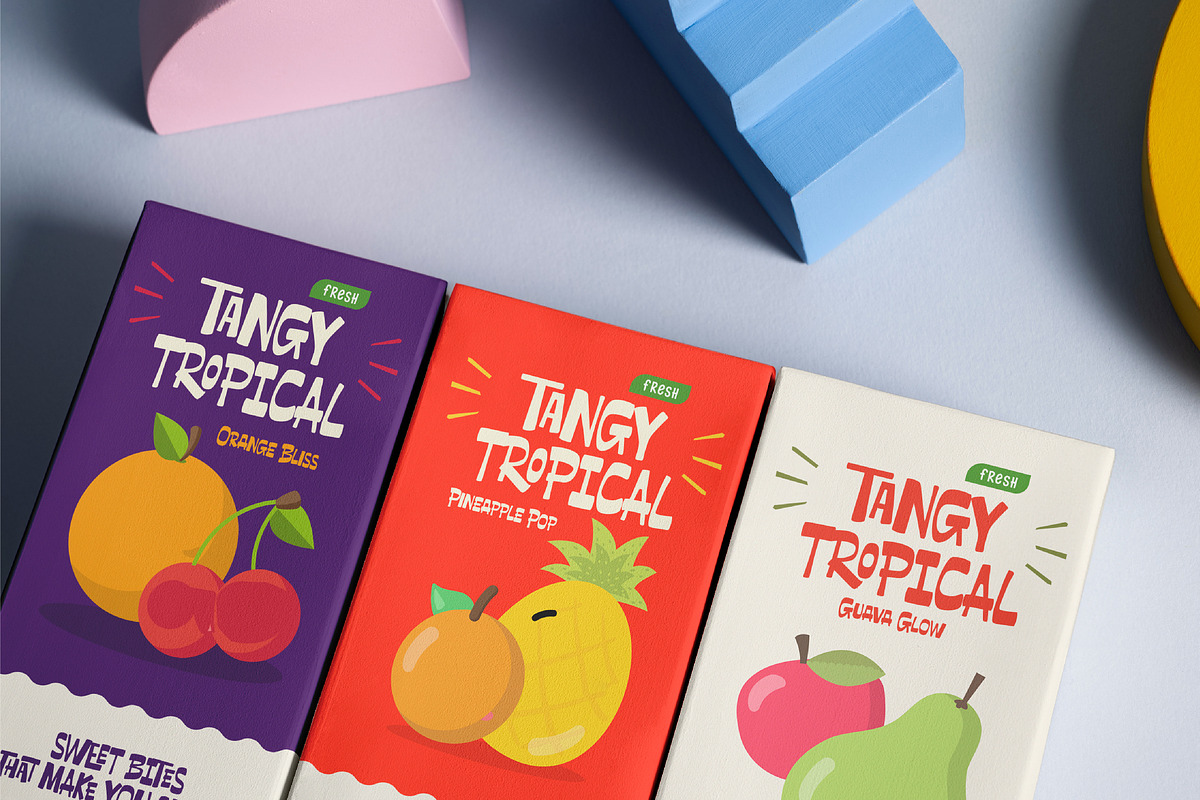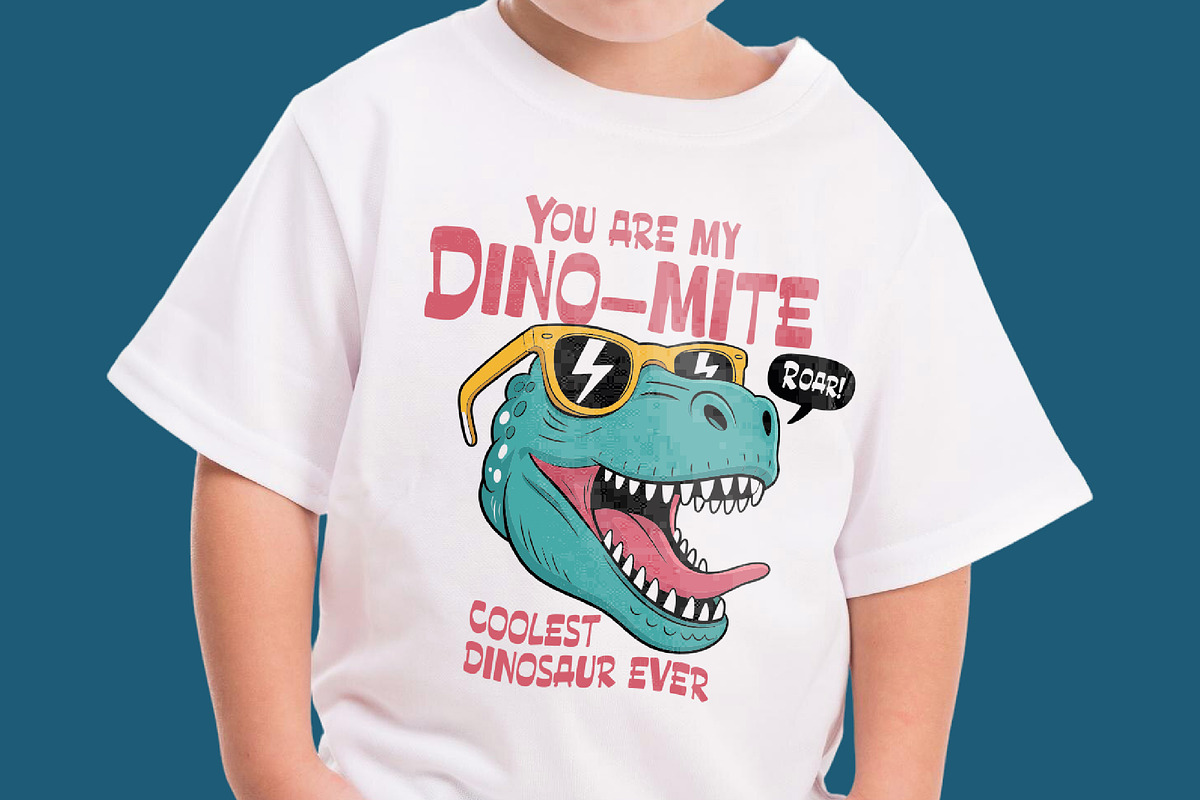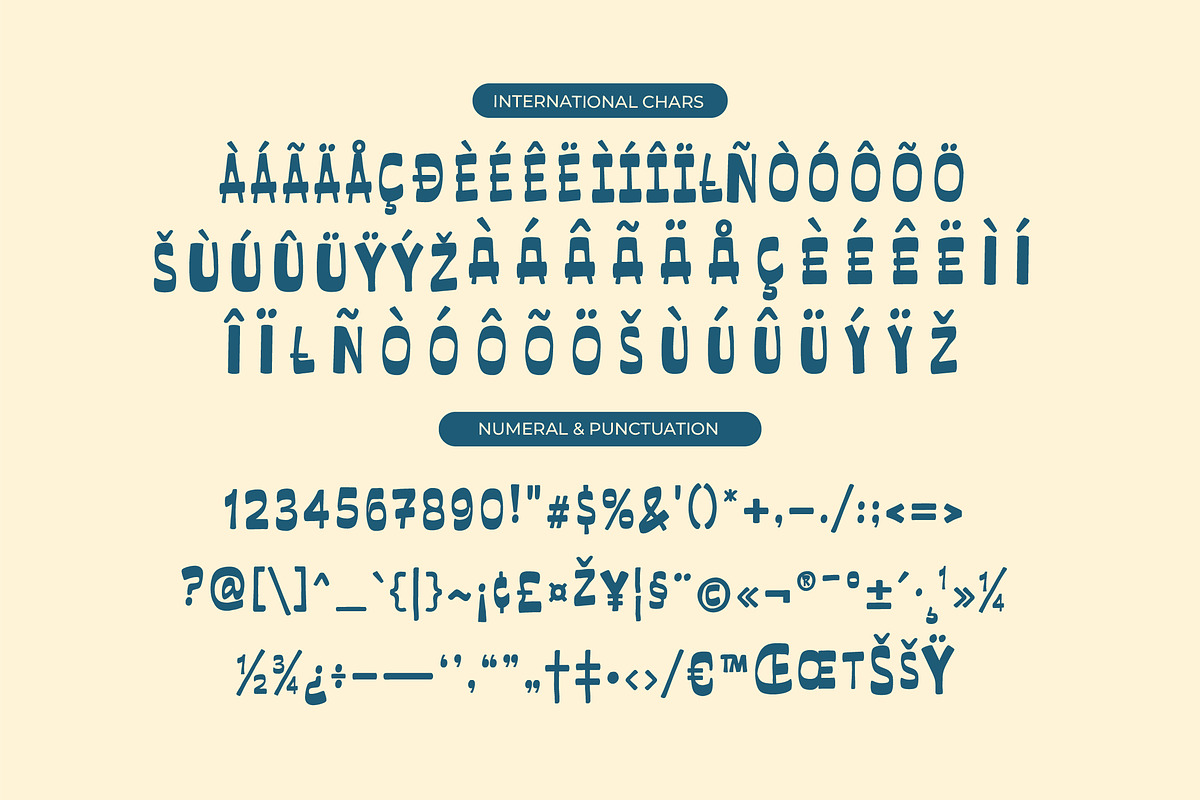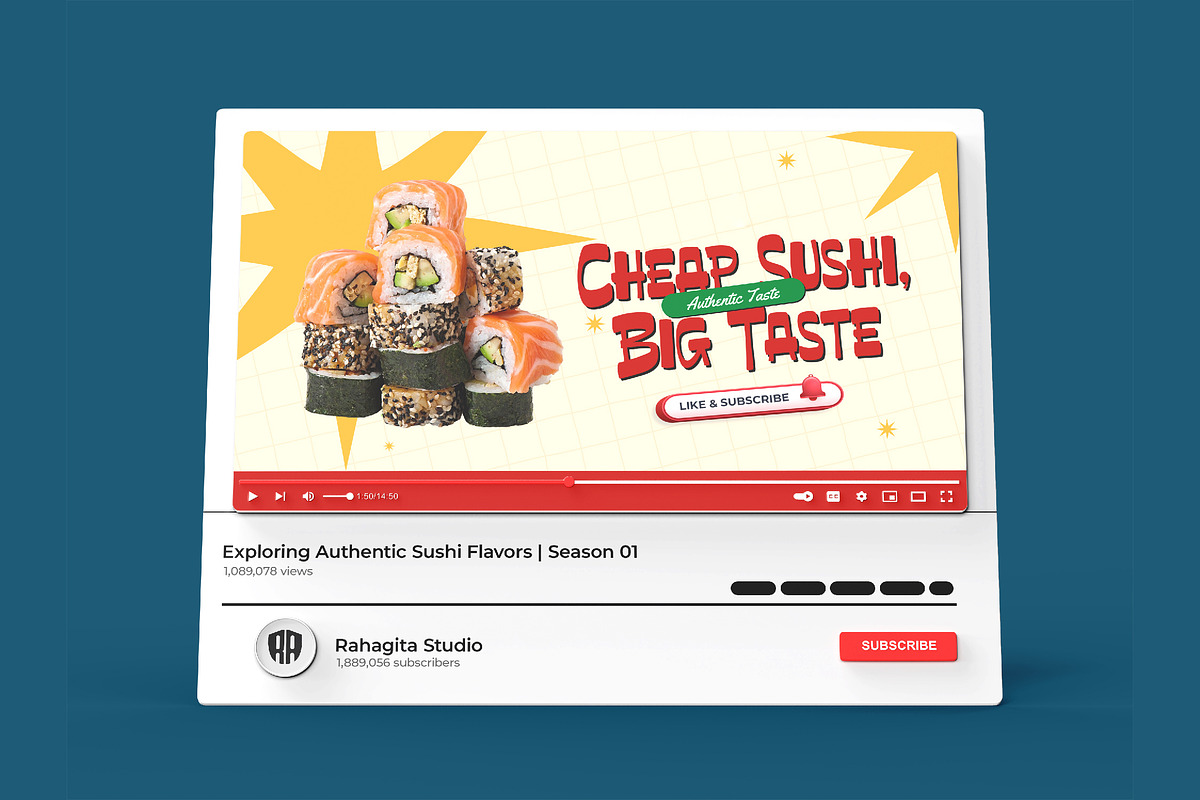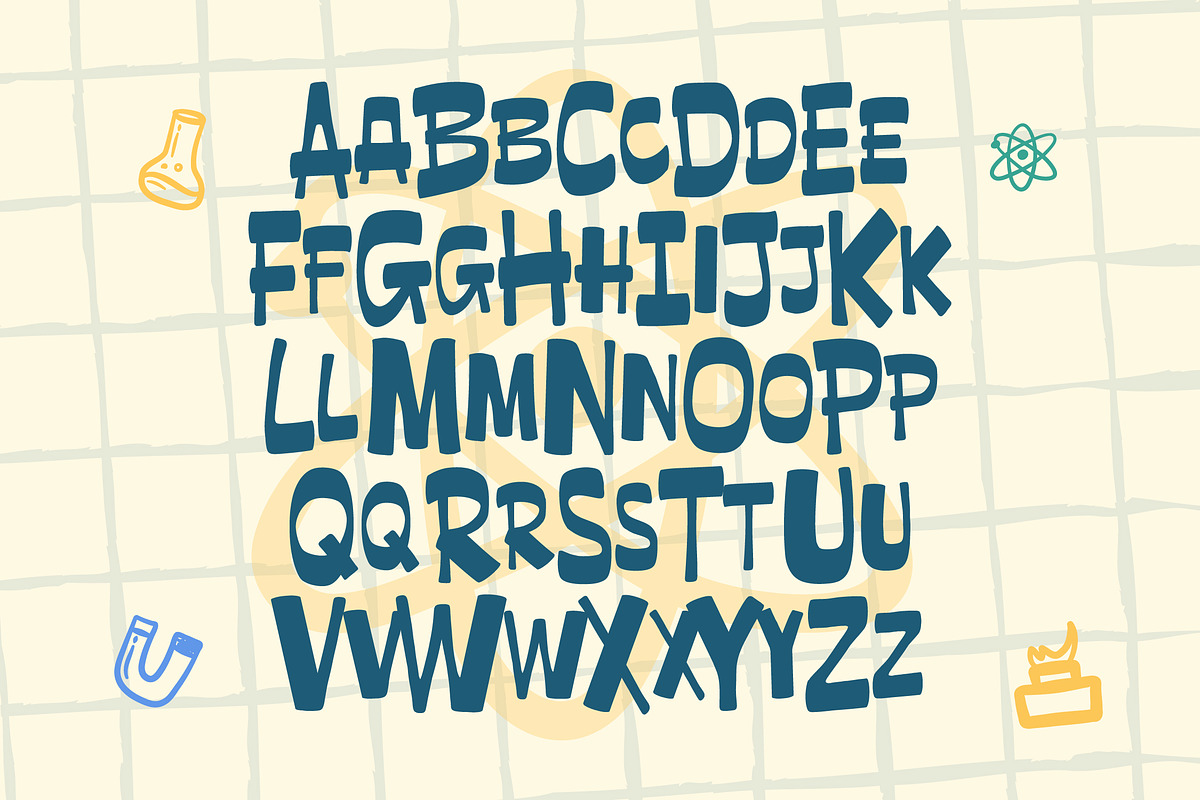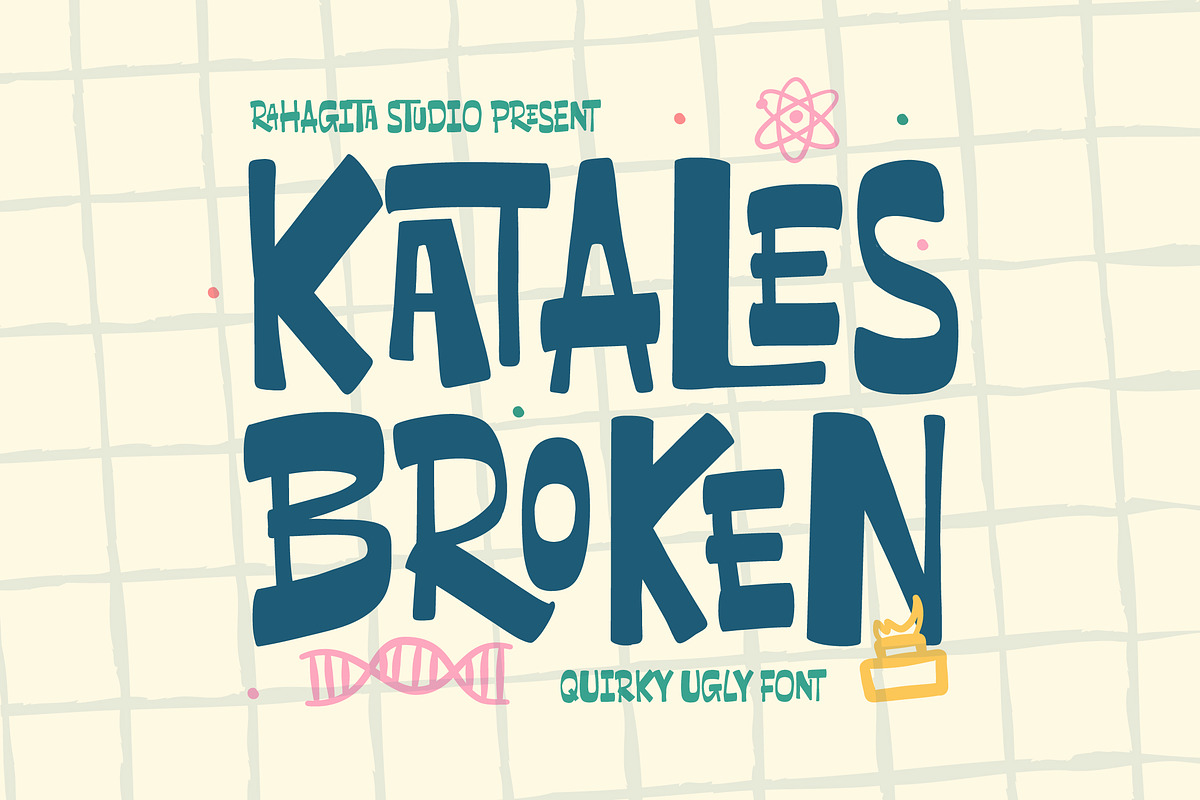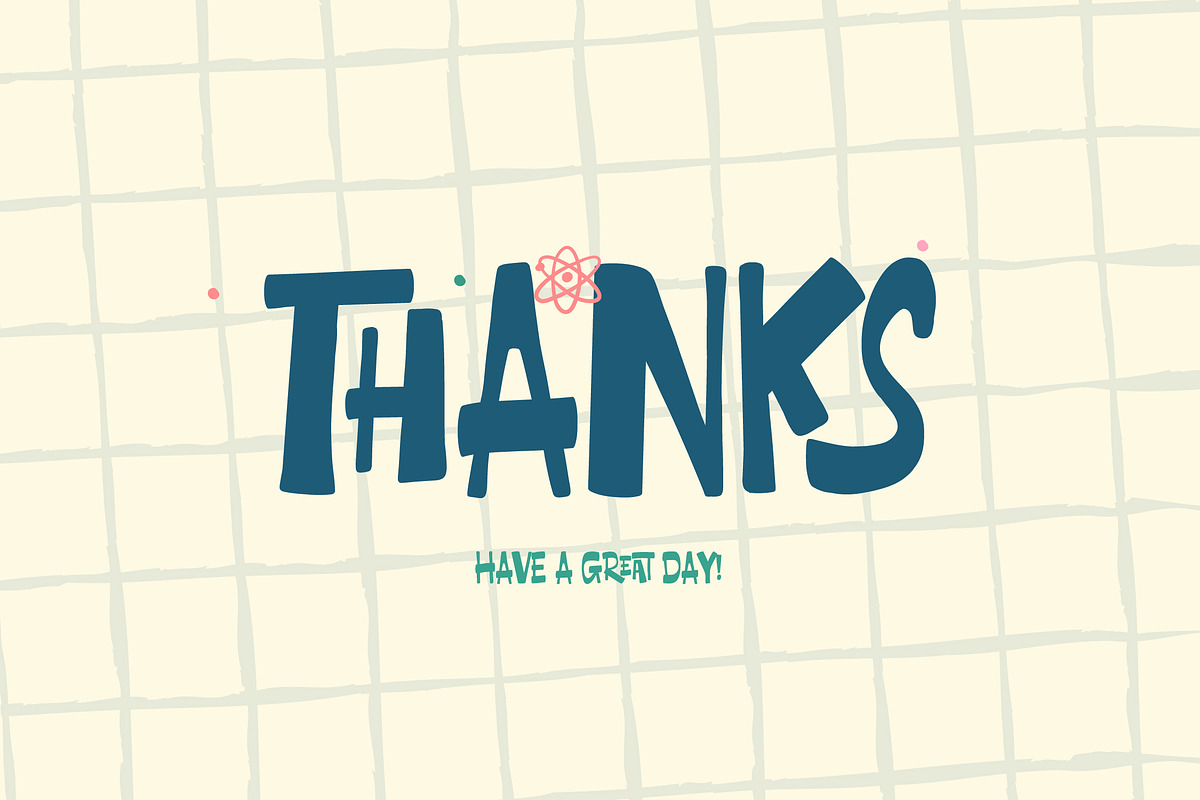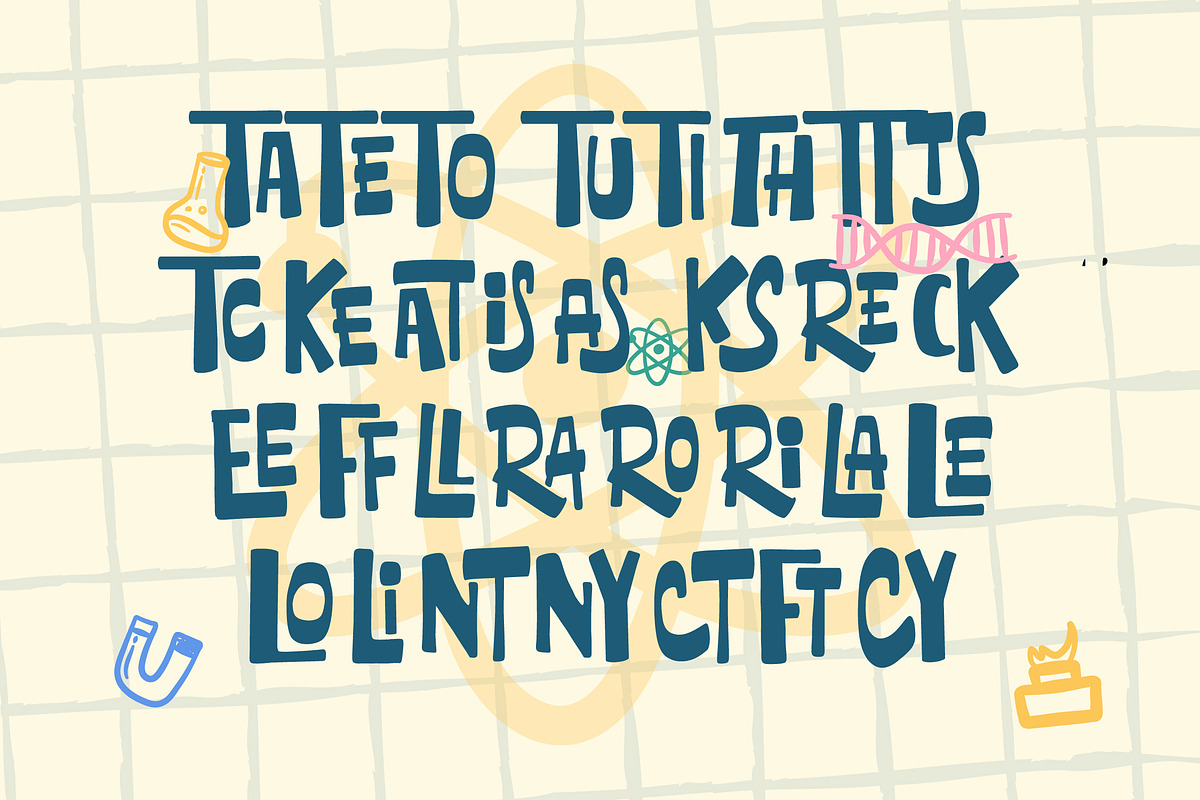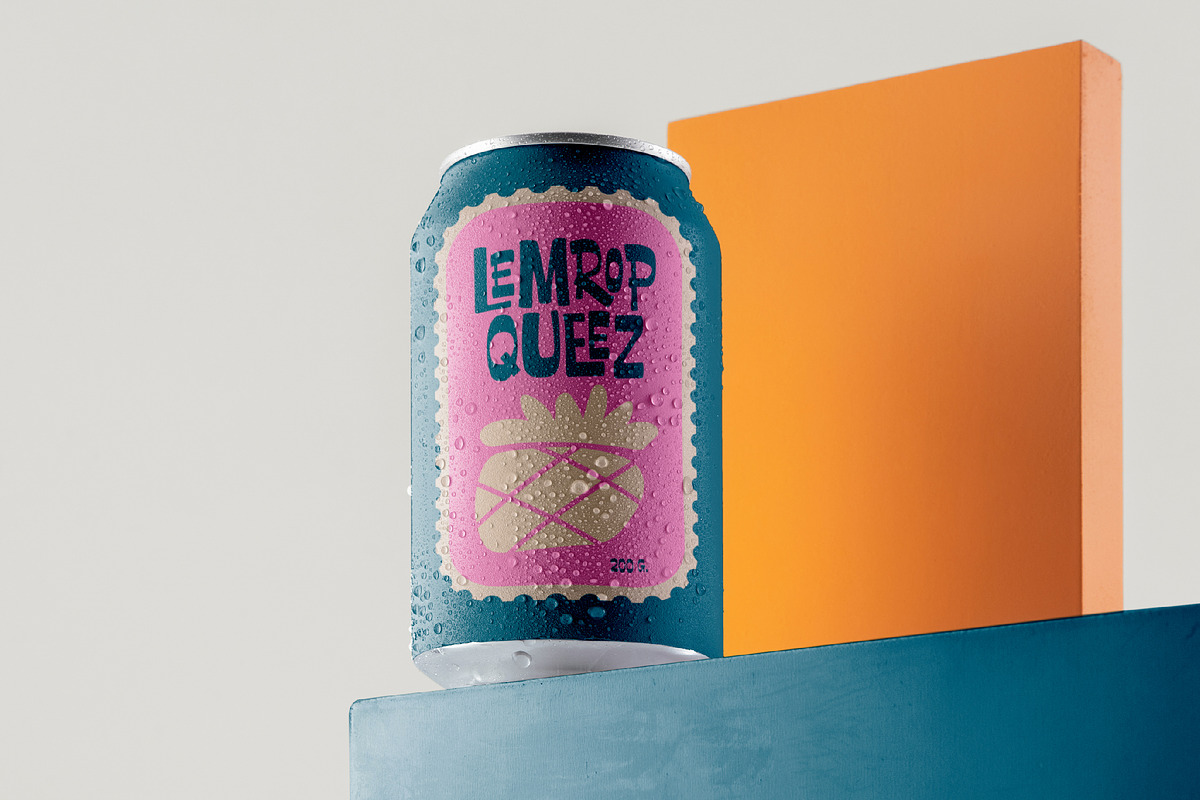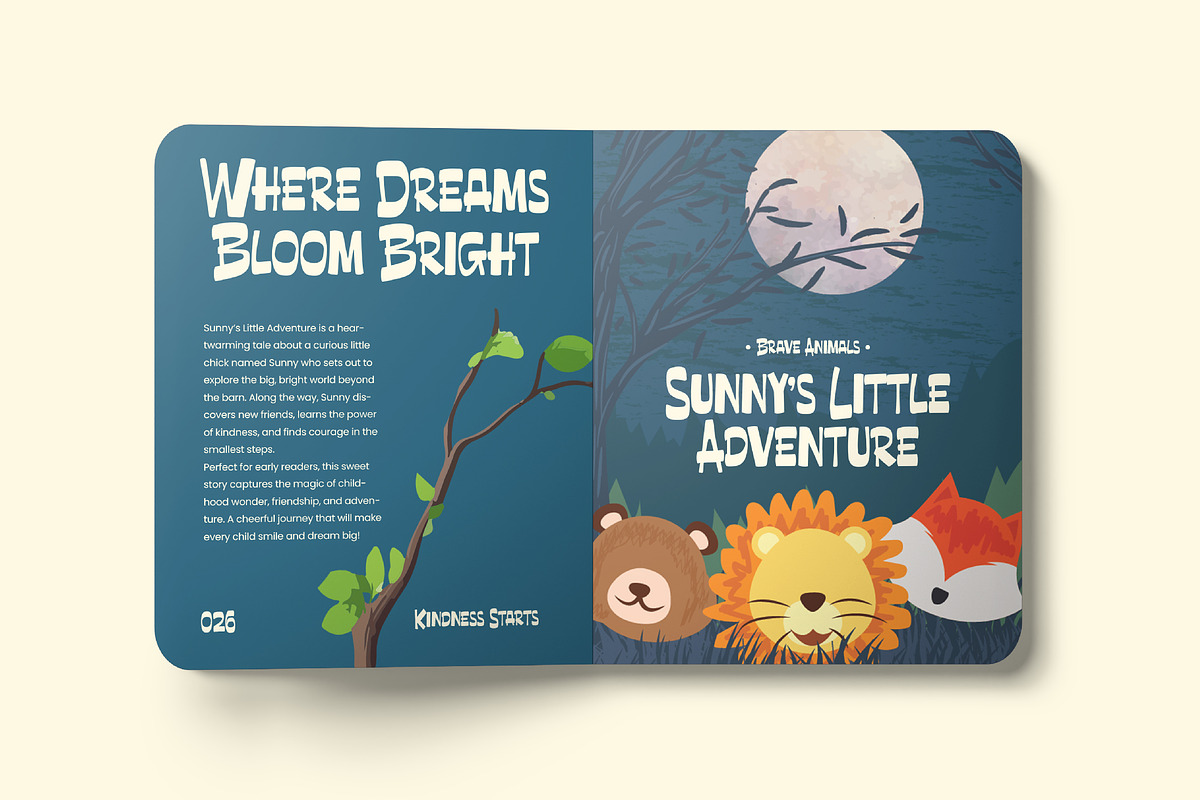
Katales Broken
Step into a realm of whimsical creativity with Katales Broken! This strikingly bold and quirky display font brims with merry eccentricity and a delightful flair of offbeat charm. Each character stands unique, emerging from an artistic milieu of hand-drawn originality, launching your designs into a stratosphere of spontaneity and cheer. Katales Broken infuses fun, vivacity, and a vibrant pulse of youthful zing into a multitude of projects, whether they’re children’s books, eye-catching posters, product packaging, trendy apparel, or imaginative branding. The lively scratches and irregular shapes radiate a buoyant cheerfulness, making it the go-to font for projects intertwined with elements of creativity, science, nature, or for anything requiring a renewed, experimental, and joyous spin.